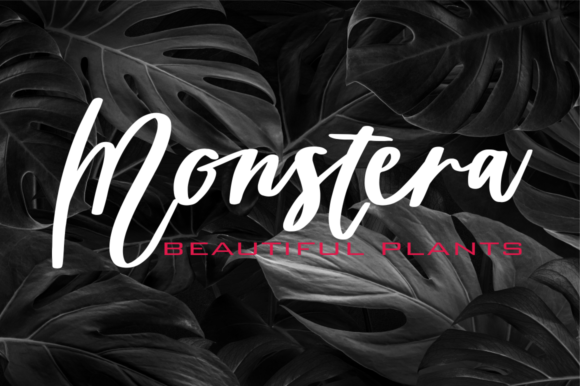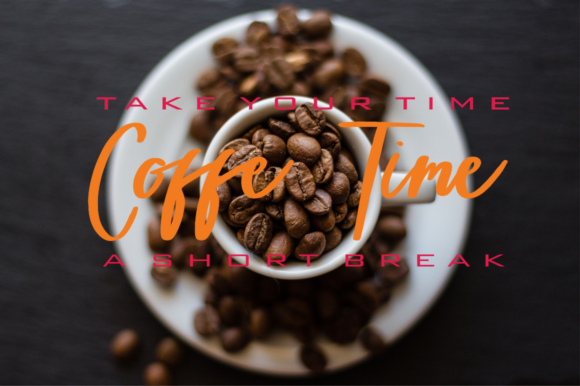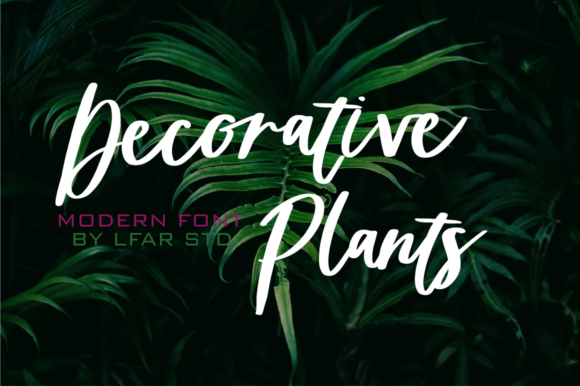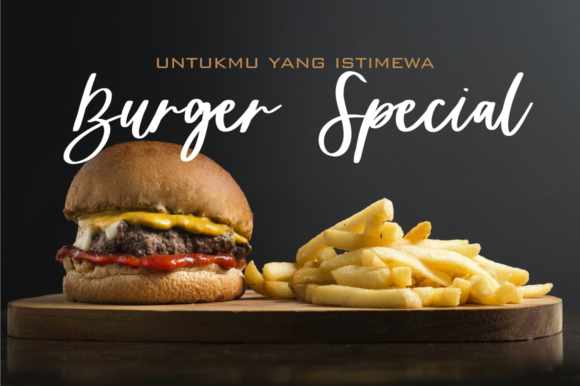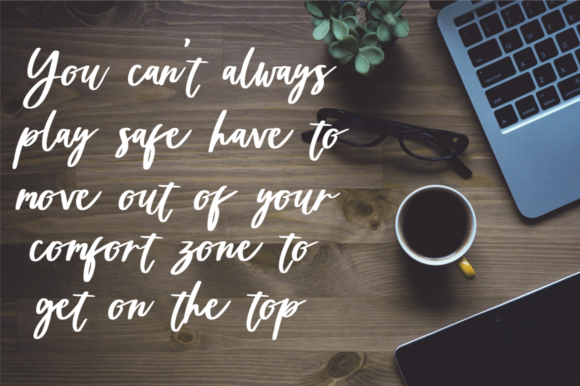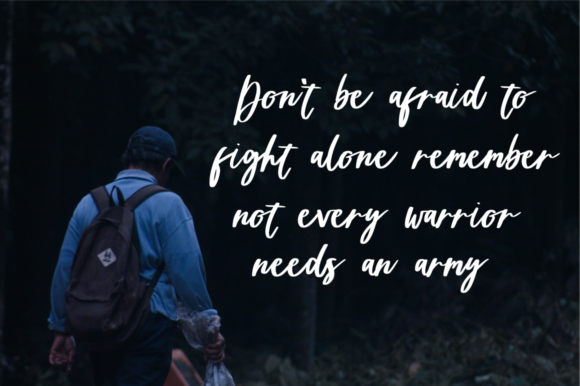
Introducing Doctor Directur Font: Elevate Your Designs with Confidence and Sophistication
In the world of design, typography plays a crucial role in conveying messages, evoking emotions, and creating lasting impressions. For designers and crafters seeking to add a smart and confident touch to their projects, the Doctor Directur font is an exceptional choice. This versatile font is perfect for a wide range of applications, from quoting words of wisdom to crafting brand names, book covers, valentines, Christmas cards, and romantic messages.
What Makes Doctor Directur Font Stand Out?
Doctor Directur font boasts a unique blend of modernity and classic sophistication, making it an ideal choice for designers who want to elevate their work. Its clean lines, elegant curves, and precise craftsmanship give it a distinctive look that commands attention and exudes confidence. Whether you’re working on a professional project or a personal craft, this font is sure to make a lasting impression.
Ideal Applications for Doctor Directur Font
Doctor Directur font is incredibly versatile, making it suitable for various design projects. Here are some ideal applications:
- Quoting Words of Wisdom: Add a touch of sophistication to your inspirational quotes, making them perfect for social media posts, posters, or flyers.
- Brand Names: Create a lasting impression with a confident and modern brand name that stands out from the competition.
- Book Covers: Use Doctor Directur font to create eye-catching book covers that convey a sense of professionalism and sophistication.
- Valentines and Romantic Messages: Add a touch of romance and elegance to your valentines, romantic messages, and wedding-related designs.
- Christmas and Holiday Cards: Create stunning holiday cards and invitations that exude warmth and sophistication.
Why Designers and Crafters Love Doctor Directur Font
Designers and crafters love Doctor Directur font for its:
- Ease of Use: Doctor Directur font is easy to read and works well in various sizes, making it perfect for both digital and print applications.
- Flexibility: This font can be used for a wide range of projects, from formal to informal, and can be paired with various other fonts to create a unique look.
- High-Quality Design: Doctor Directur font is crafted with precision, ensuring a high-quality look that enhances any design.
Tips for Using Doctor Directur Font Effectively
To get the most out of Doctor Directur font, consider the following tips:
- Pair it with Complementary Fonts: Combine Doctor Directur font with other fonts that complement its style to create a visually appealing design.
- Experiment with Colors: Try different color schemes to find the perfect match for your design and the Doctor Directur font.
- Use it for Headings and Titles: Doctor Directur font works well for headings and titles, making it perfect for creating stunning text-based designs.
Doctor Directur font is an exceptional choice for designers and crafters seeking to add a smart and confident touch to their projects. Its versatility, elegance, and precision make it perfect for a wide range of applications. Whether you’re working on a professional project or a personal craft, Doctor Directur font is sure to elevate your designs and make a lasting impression.
So why wait? Discover the power of Doctor Directur font and take your designs to the next level. With its unique blend of modernity and classic sophistication, this font is sure to become a staple in your design toolkit.